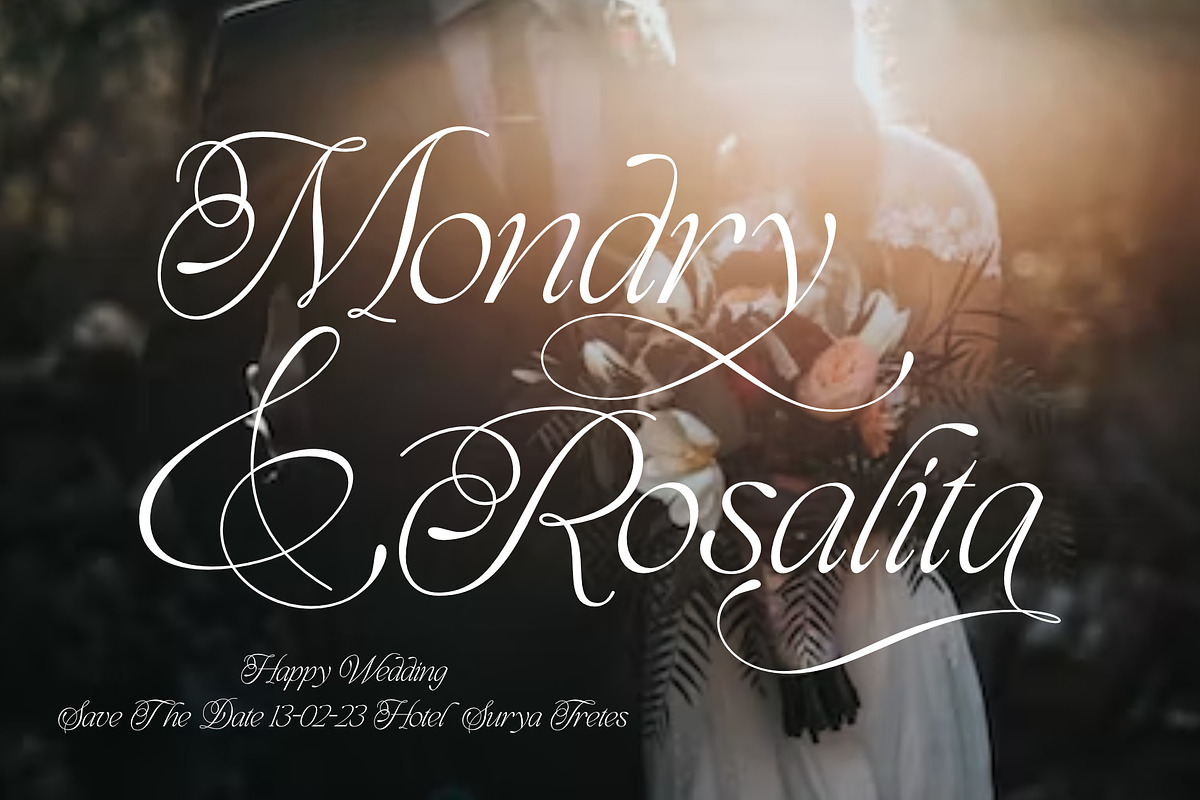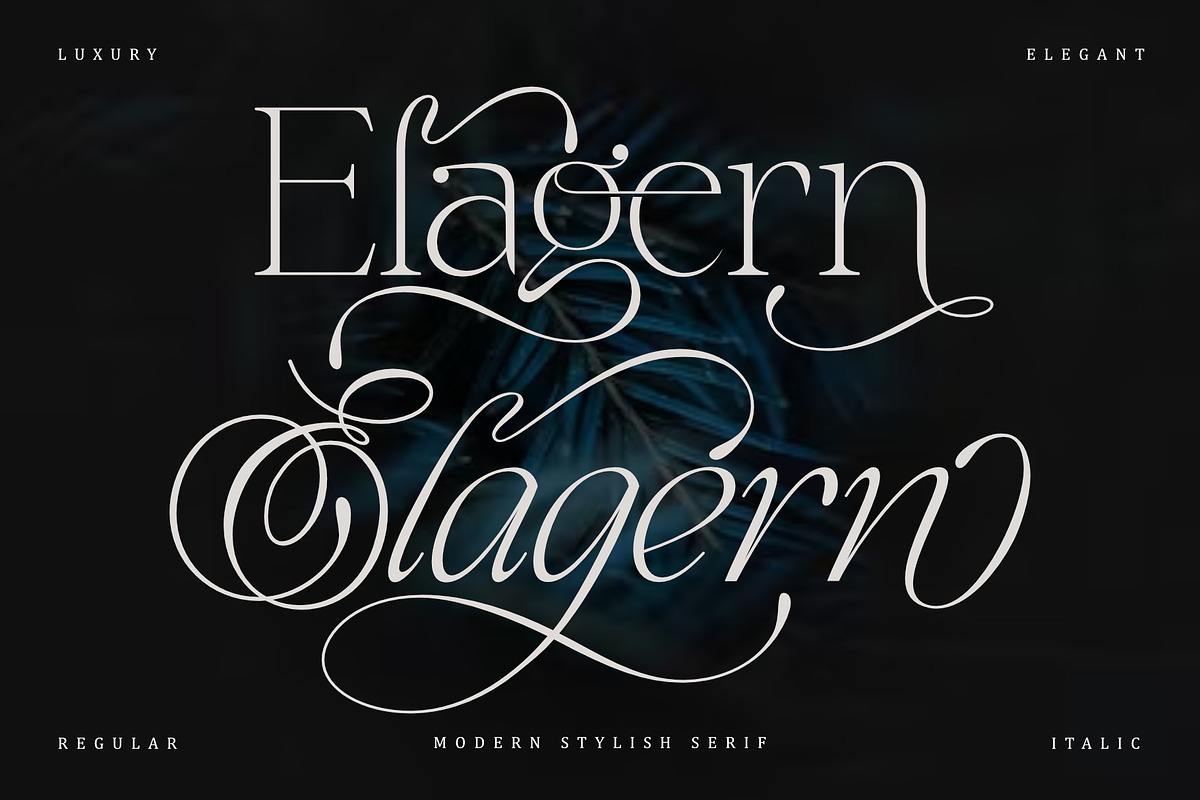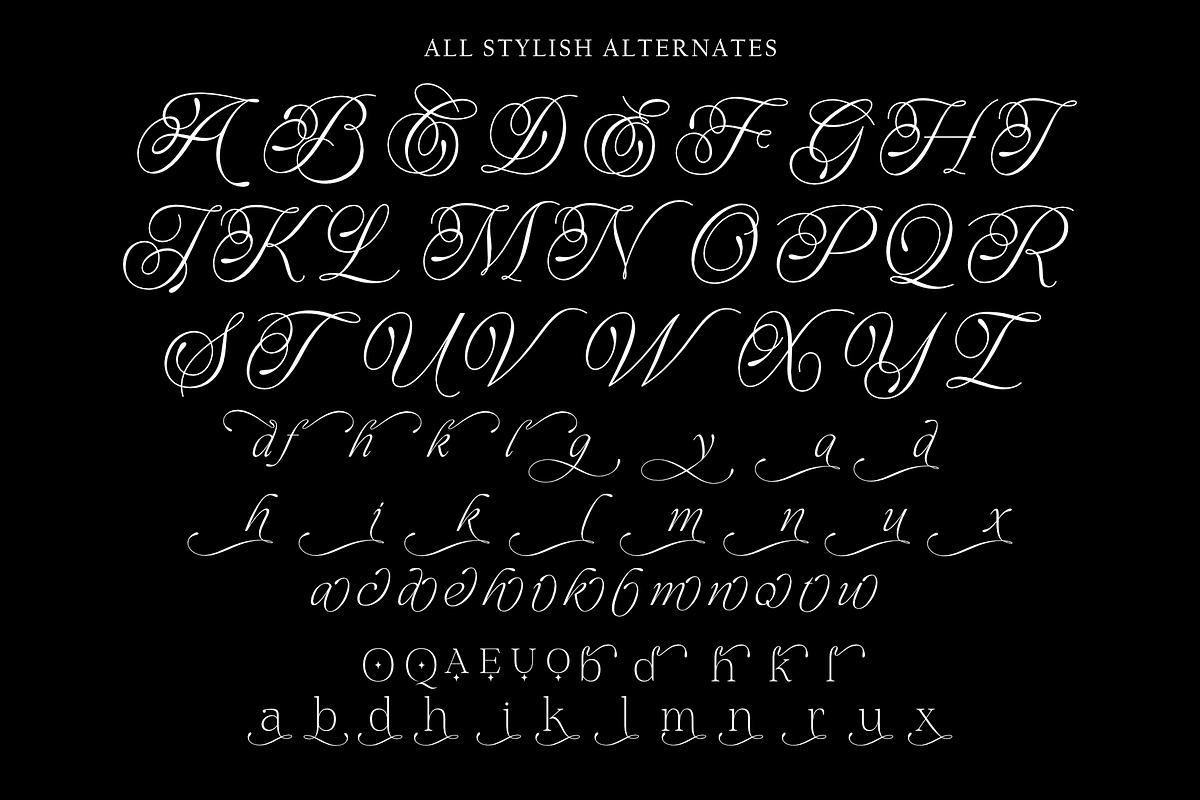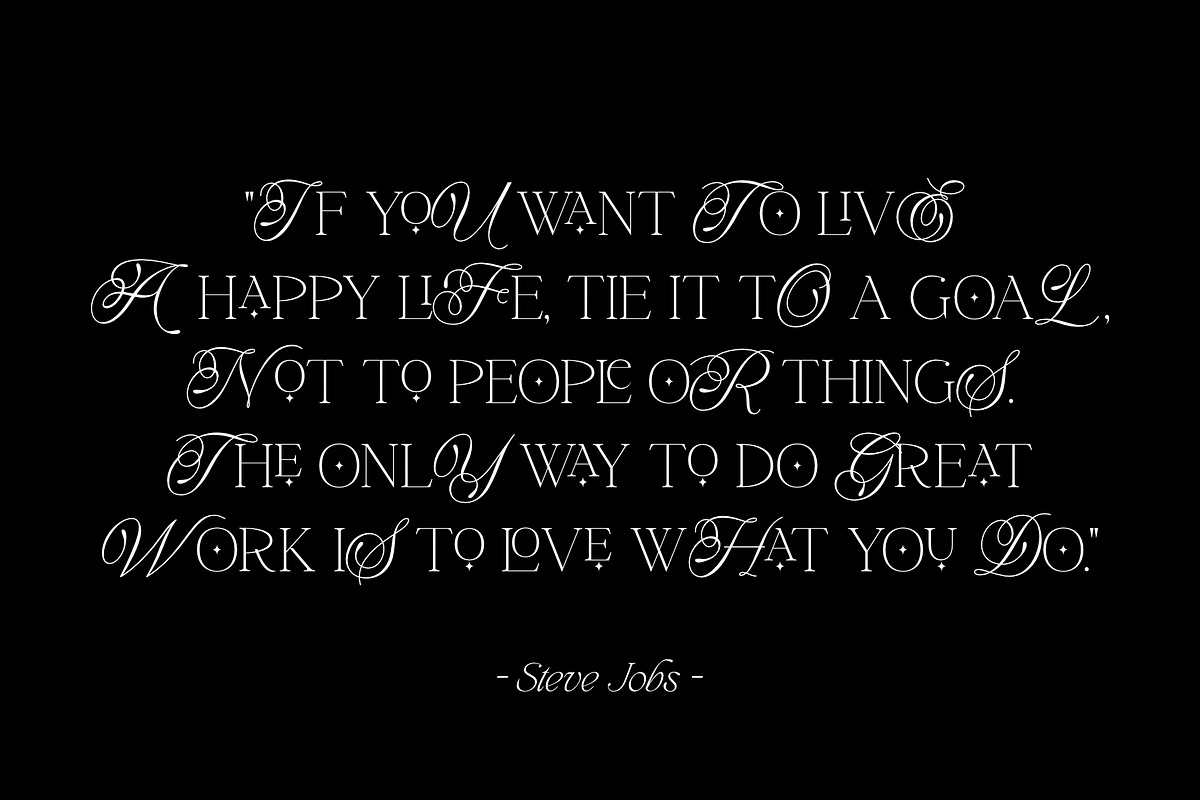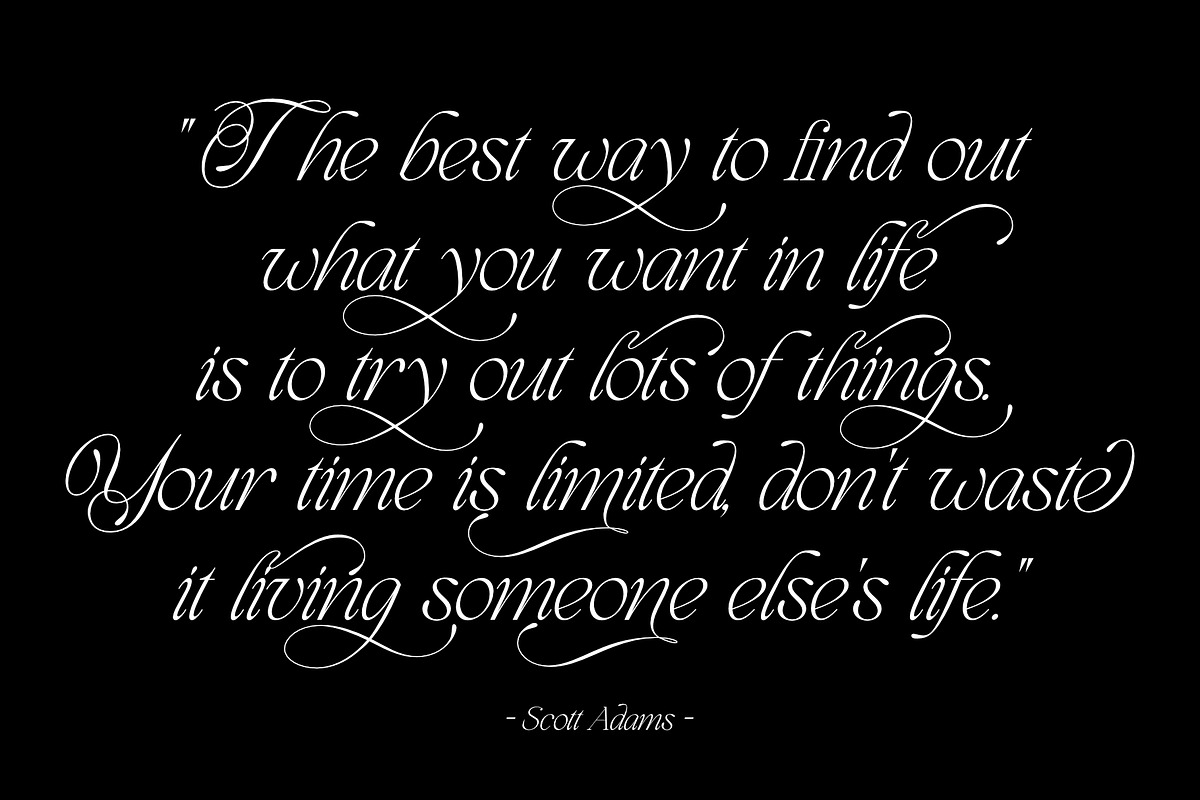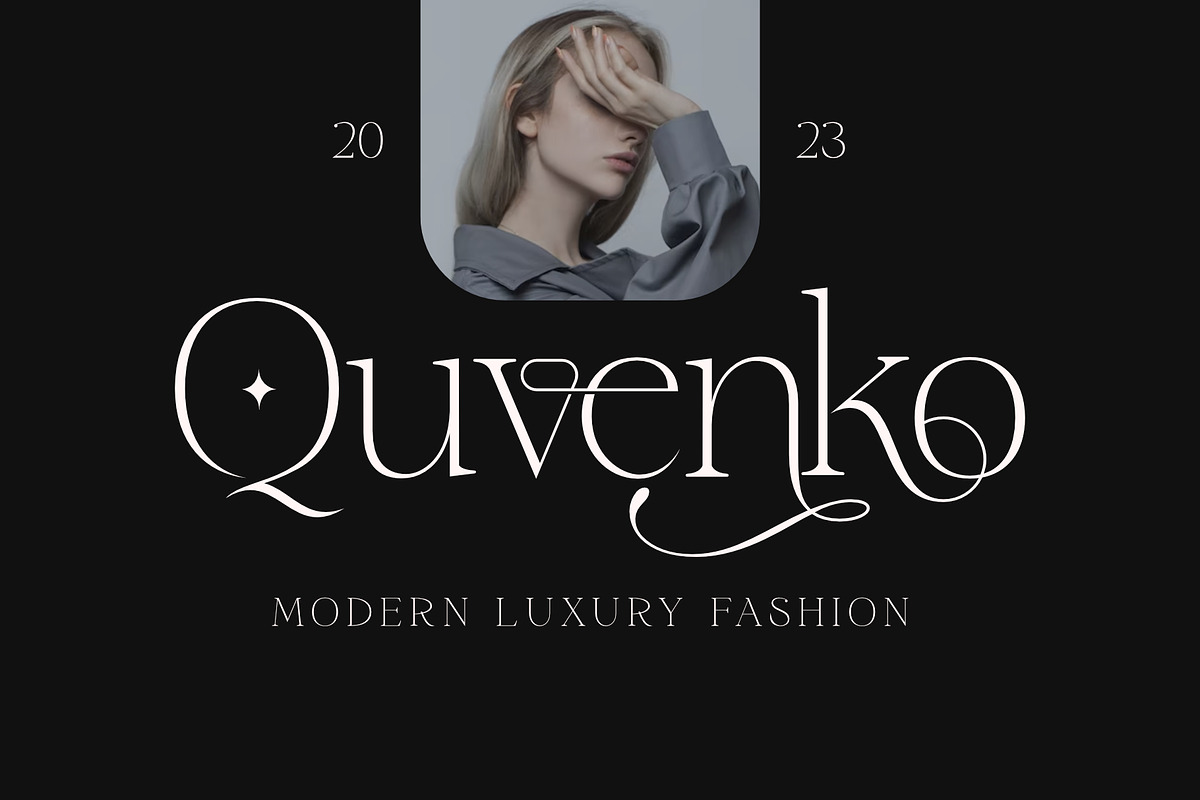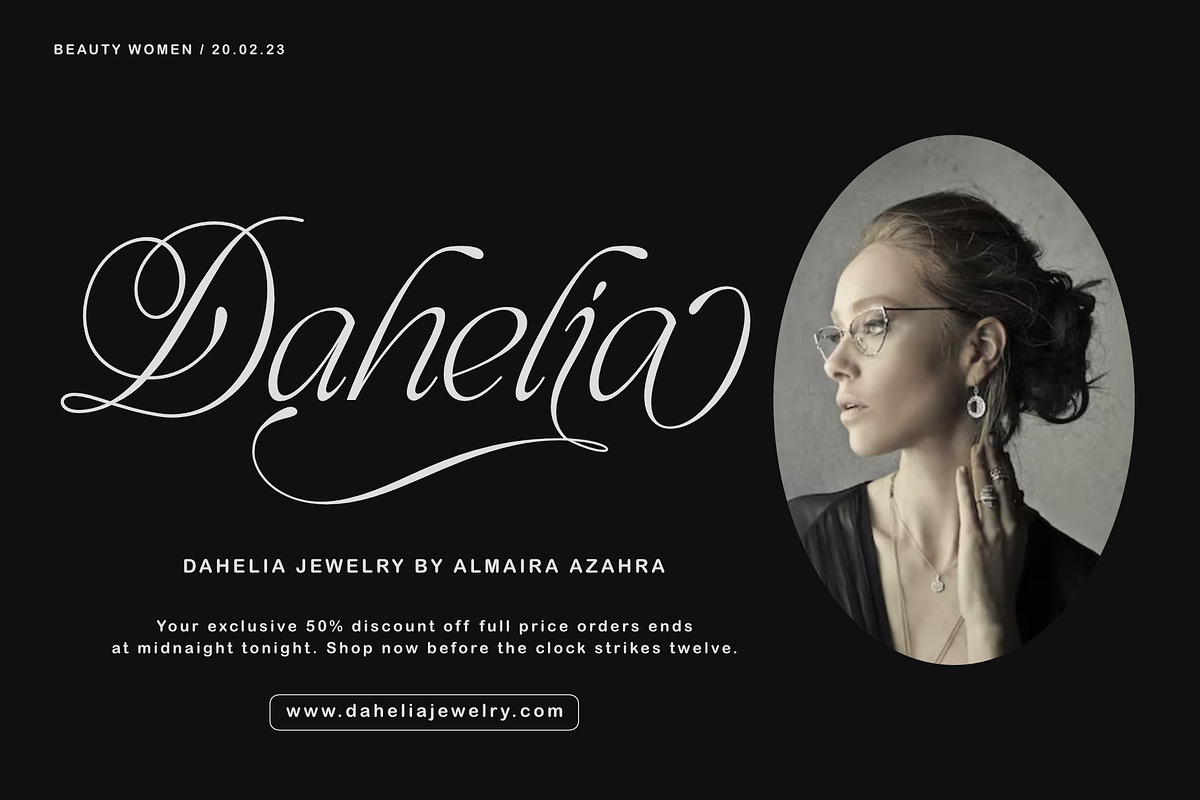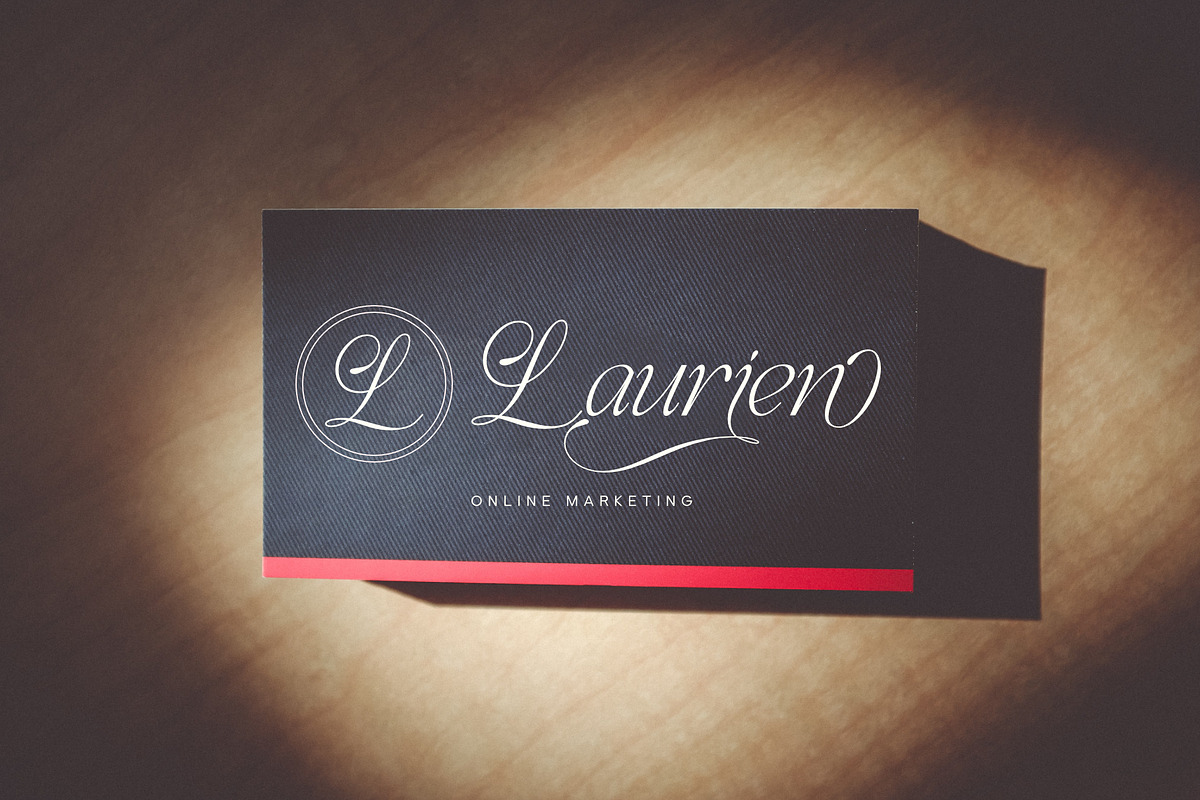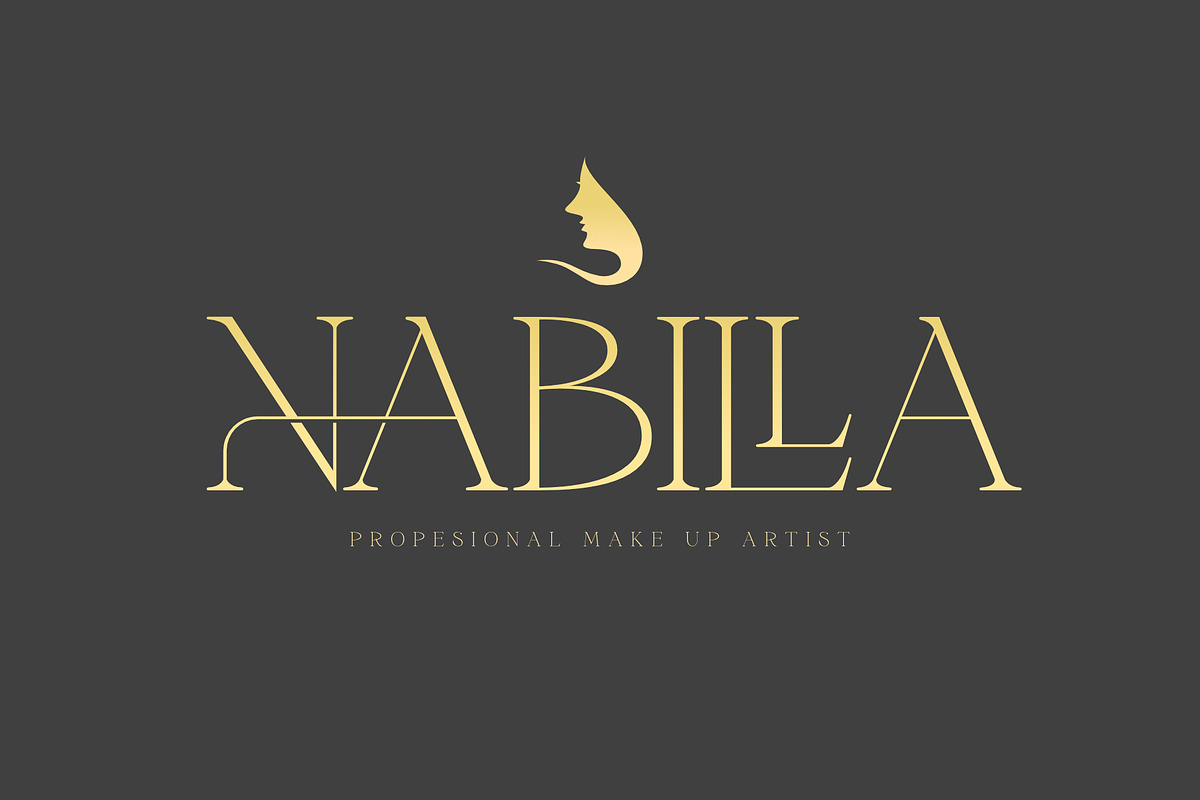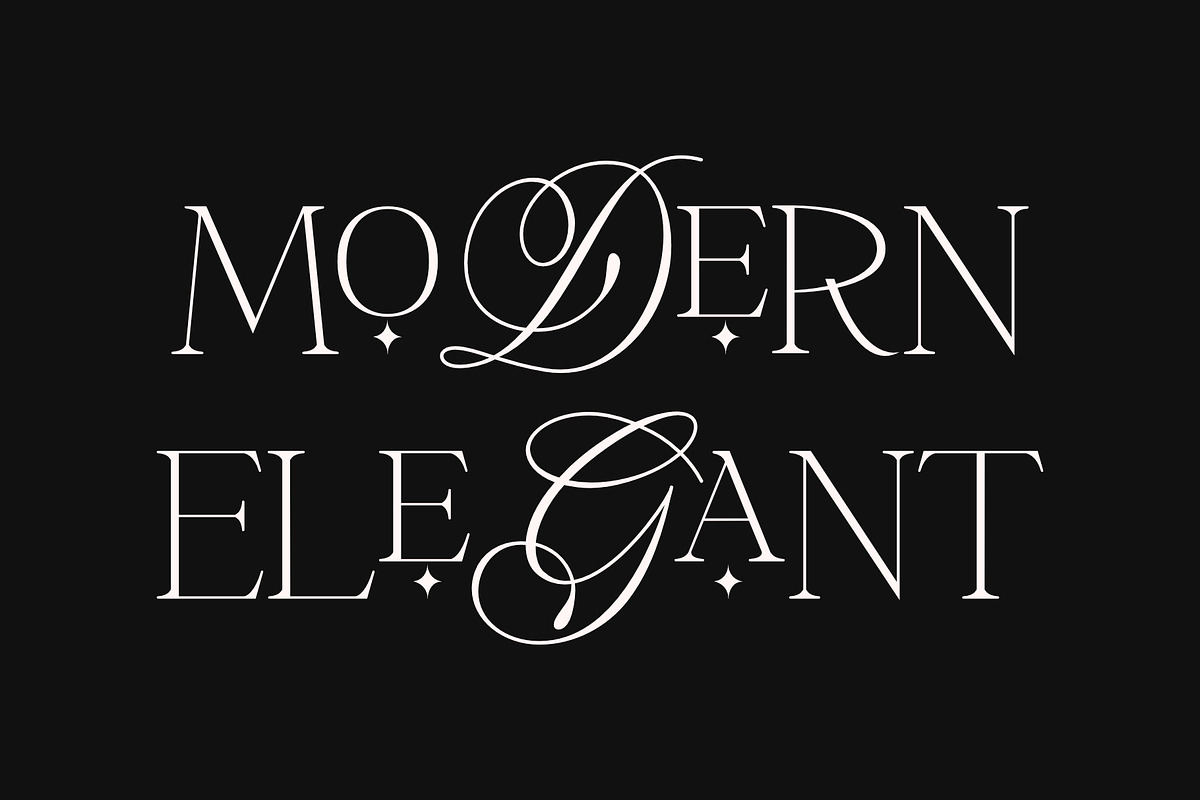
Elagern | Modern Stylish Serif
Elagern is a serif font with an elegant, modern design. It features multiple alternates and ligatures, making it a versatile choice for a wide range of applications. Its elegant serifs and classic proportions make it perfect for everything from body text to headlines, making it a perfect choice for any project.